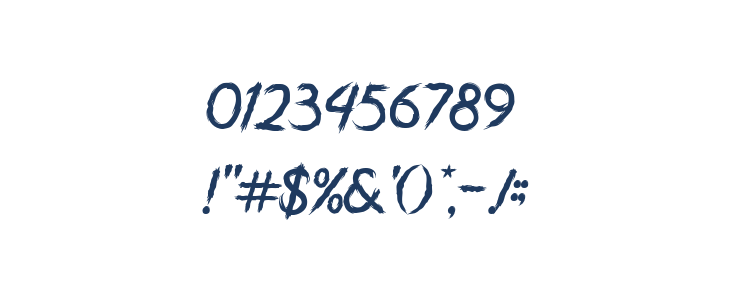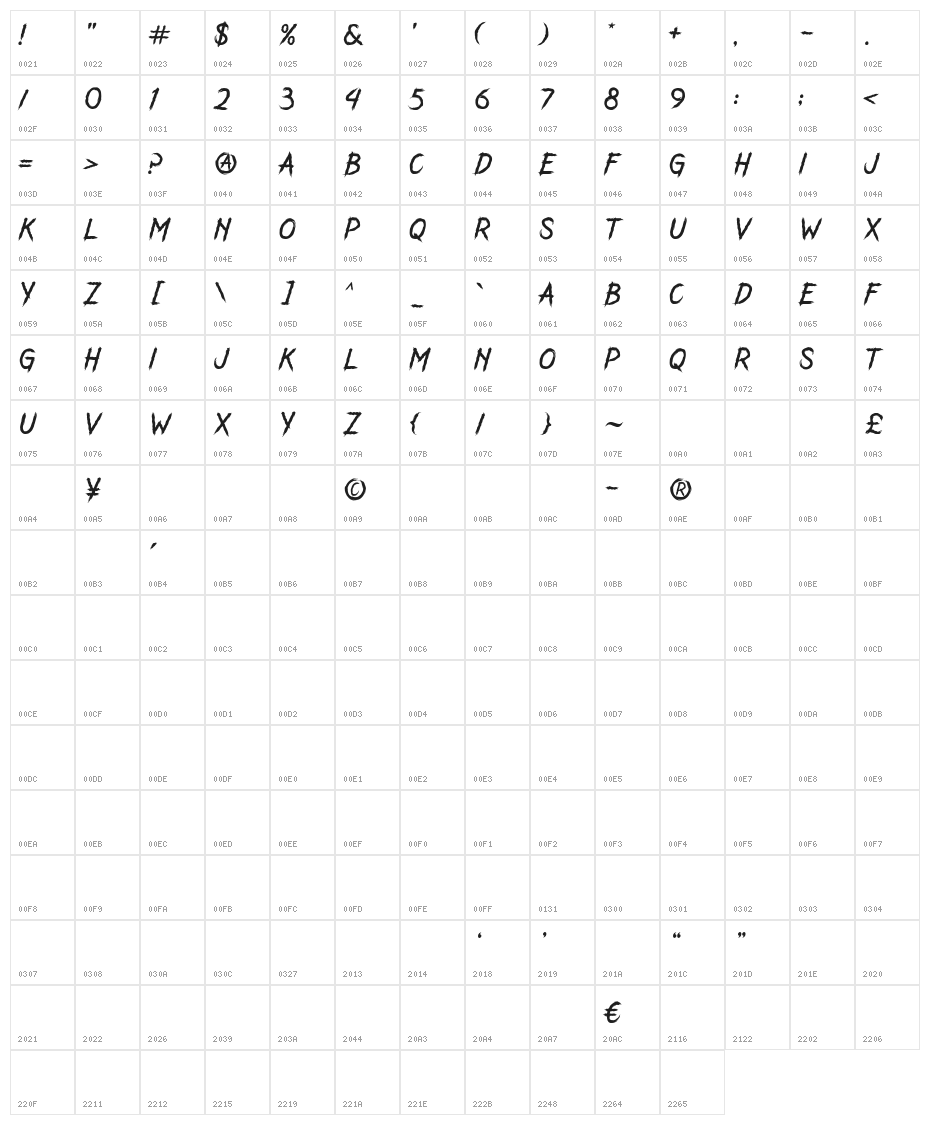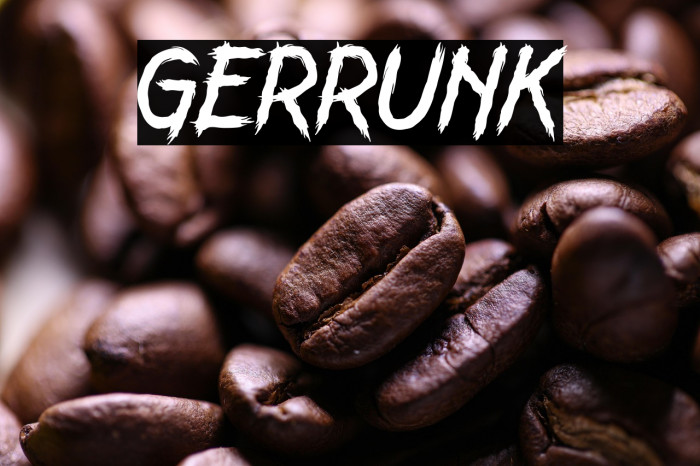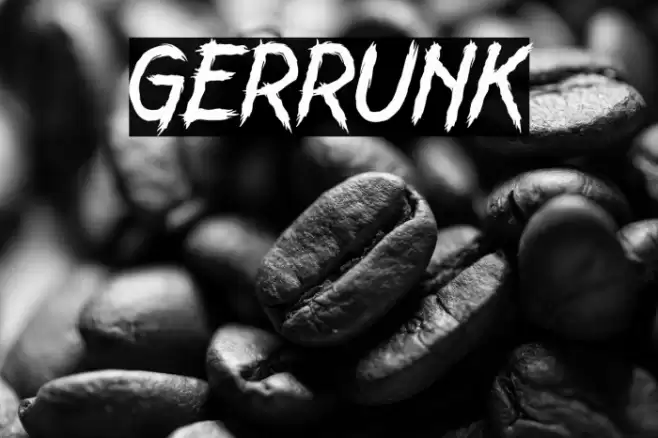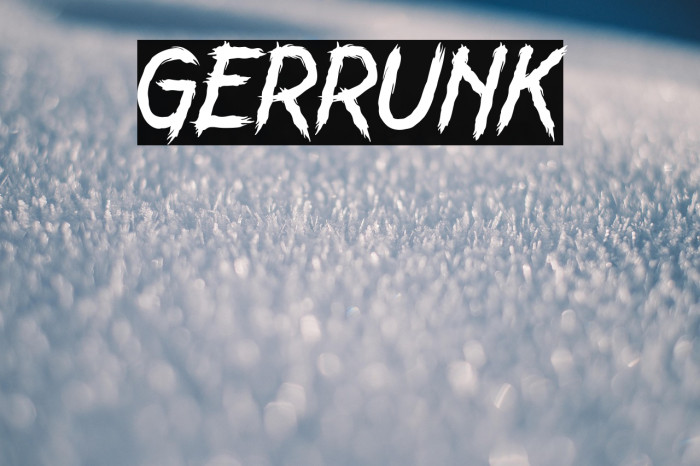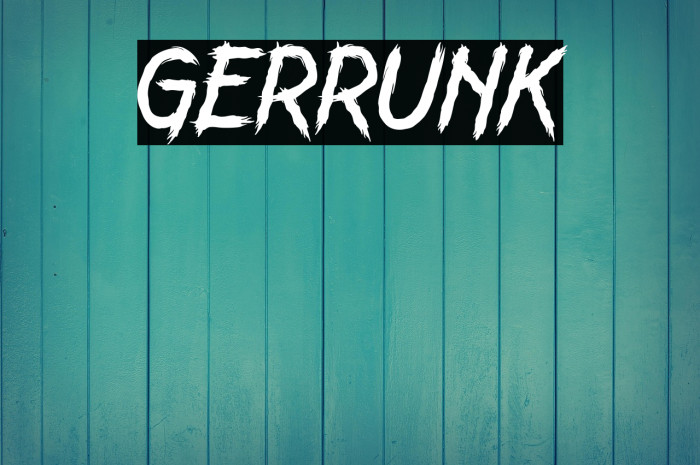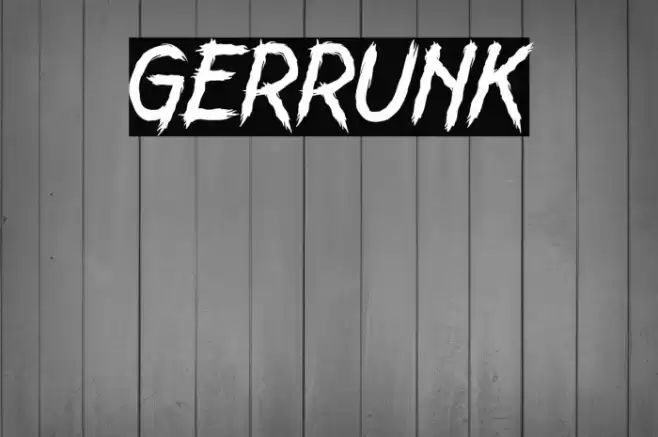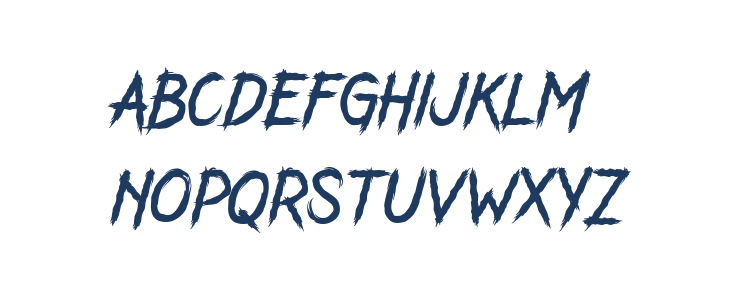
GERRUNK Font
GERRUNK Description
This font features a jagged, edgy design that gives it a dynamic and aggressive appearance. The strokes are irregular and sharp, resembling torn paper or claw marks, which adds a sense of movement and intensity. The uppercase and lowercase letters maintain a consistent style, with each character exhibiting unique, rugged edges. The numbers and special characters follow the same aesthetic, ensuring a cohesive look across all glyphs. This font's distinctive style makes it ideal for projects that require a bold, eye-catching statement.
| Proposed Projects | Perfect for horror-themed designs, edgy posters, album covers, or any project needing a bold, striking impact. |